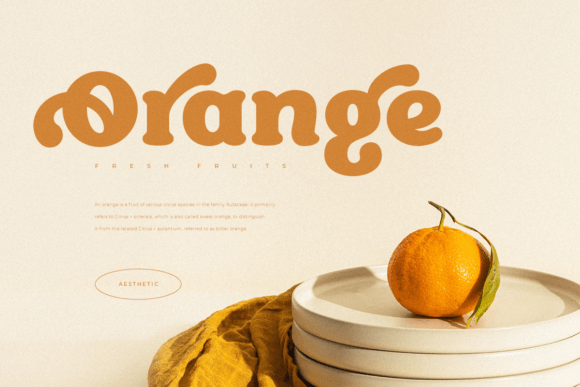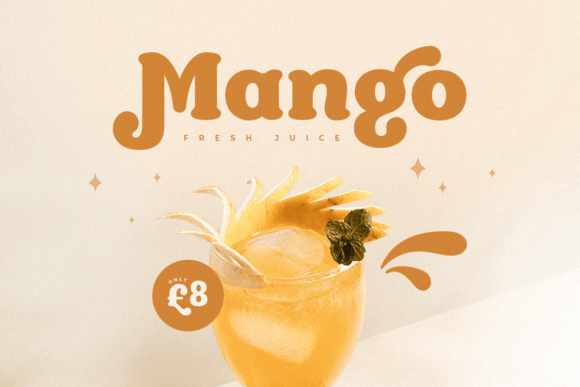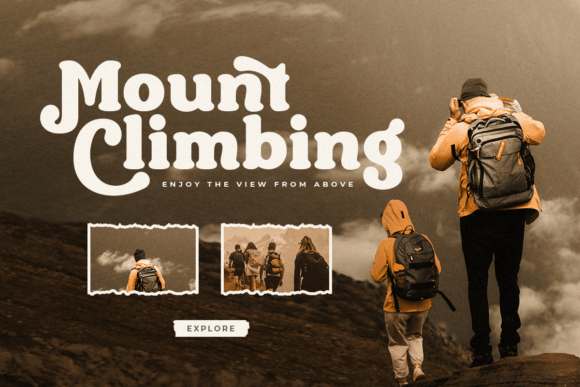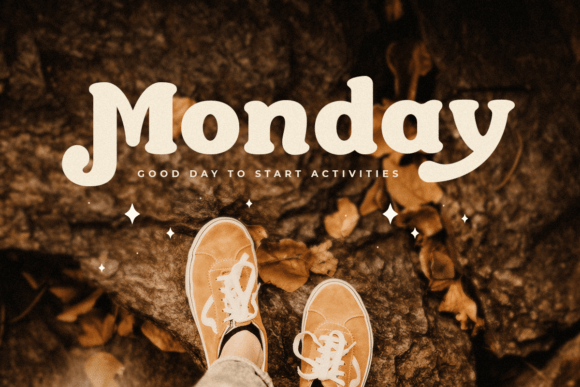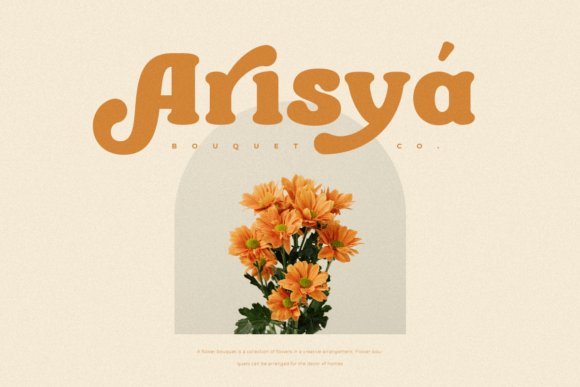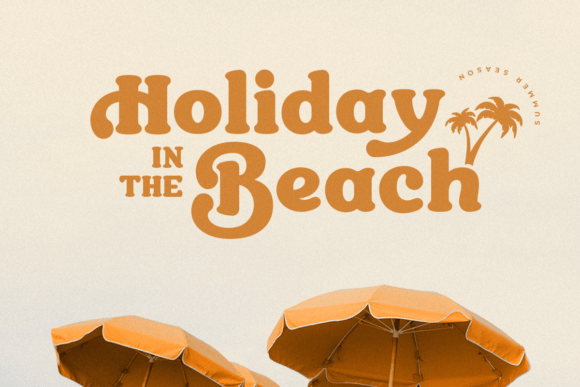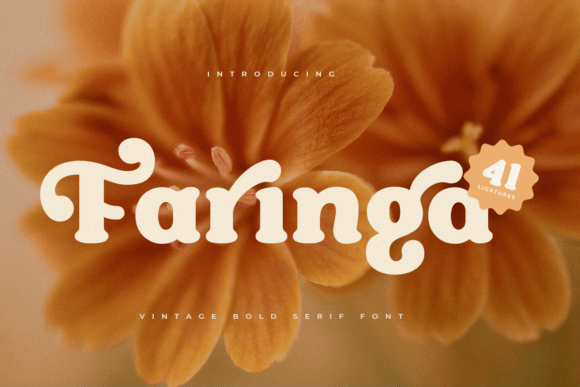
Faringa Font: Elevate Your Design with a Bold Vintage Twist
In the world of typography, fonts play a crucial role in making or breaking a design. A well-chosen font can instantly elevate your brand’s visual identity, making it more recognizable and memorable. If you’re on the hunt for a font that combines vintage charm with modern boldness, look no further than Faringa Font. In this article, we’ll dive into the unique features of Faringa, explore its design elements, and discuss how it can help you create stunning logo designs that stand out from the crowd.
The Story Behind Faringa Font
Faringa Font is a new bold vintage font that embodies the perfect blend of retro style and modern sophistication. Its creators aimed to craft a typeface that would not only pay homage to the classic serif fonts of the past but also inject a fresh, modern twist. The result is a font that exudes confidence, elegance, and a hint of nostalgia.
Design Elements of Faringa Font
Faringa Font boasts an extraordinary style that seamlessly merges vintage and retro elements with serif font characteristics. Some of its notable design elements include:
- Vintage characters: Faringa’s character set is inspired by classic typography, with subtle nods to traditional serif fonts.
- Bold and modern: The font’s bold weight and clean lines give it a modern edge, making it perfect for designs that require a strong visual impact.
- Retro flair: Faringa’s retro style is infused throughout its design, adding a touch of nostalgia and whimsy to any project.
Why Choose Faringa Font?
So, what sets Faringa Font apart from other typefaces? Here are just a few reasons why designers and crafters will love this font:
- Unique style: Faringa’s distinctive blend of vintage and modern elements makes it a standout in any design.
- Versatility: This font is perfect for a wide range of projects, from logos and branding to posters, packaging, and more.
- Ease of use: Faringa Font is designed to be highly legible, making it easy to use in various contexts.
How to Use Faringa Font in Your Design
Ready to incorporate Faringa Font into your design? Here are some tips to get you started:
- Pair it with contrasting fonts: Combine Faringa with a clean sans-serif font to create visual interest and hierarchy.
- Experiment with colors: Faringa Font looks stunning in bold, bright colors, but feel free to experiment with different hues to find the perfect match for your brand.
- Play with textures and patterns: Add depth and visual interest to your design by incorporating textures and patterns that complement Faringa’s vintage style.
Faringa Font is a game-changer for designers and crafters seeking a bold, vintage-inspired typeface that will elevate their designs. With its unique blend of retro style, modern boldness, and serif font characteristics, Faringa is poised to become a go-to choice for logos, branding, and more. Whether you’re looking to create a statement piece or simply want to add some visual interest to your design, Faringa Font is an excellent choice.